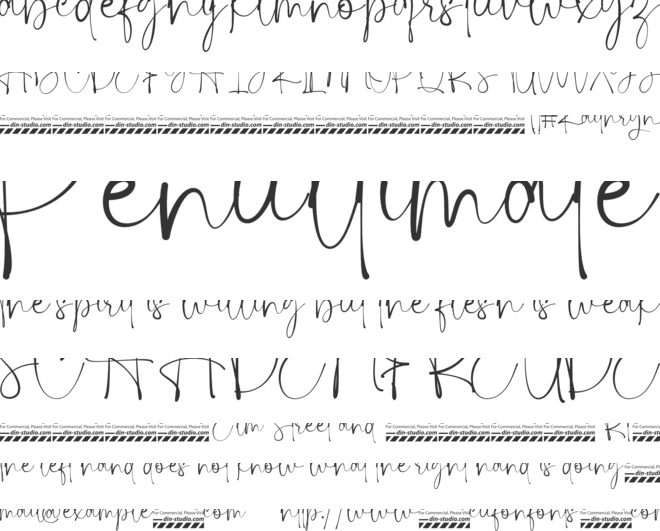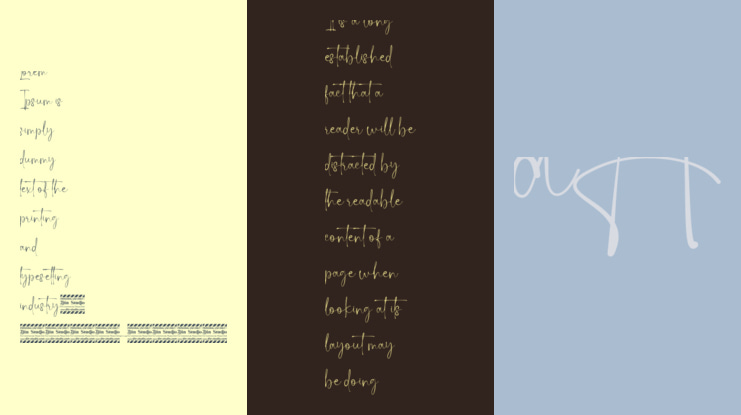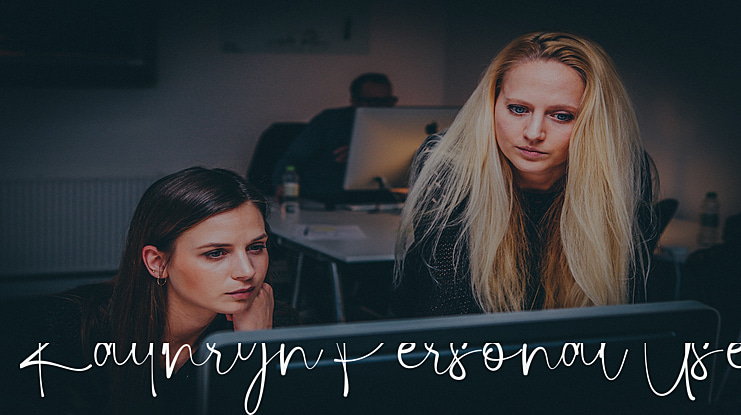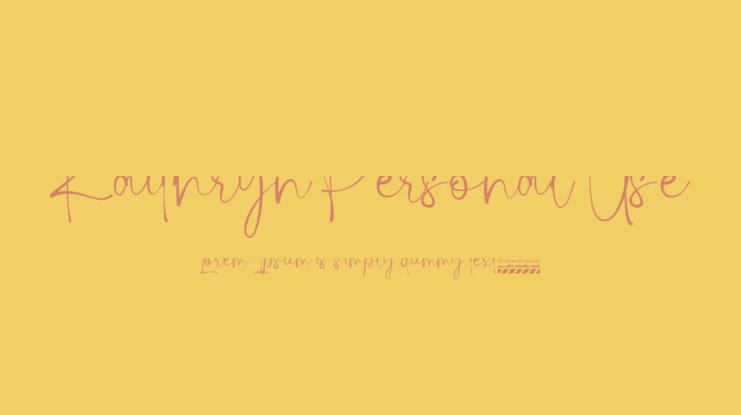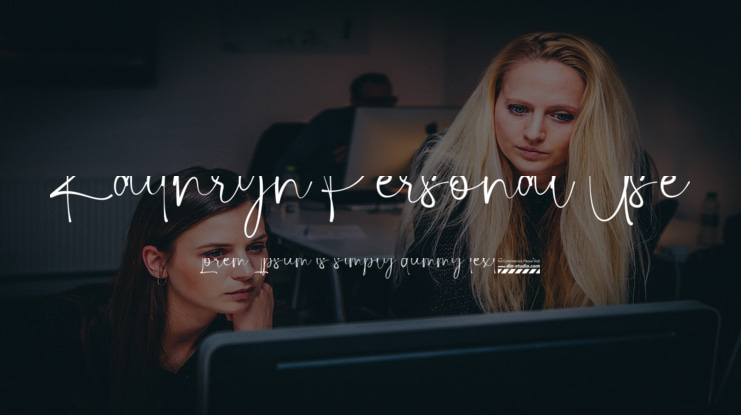
Kaithryn is a modern calligraphy font. It brings a beautiful and attractive typeface. Made for any professional project branding. It is the best for logos, branding, wedding and quotes.